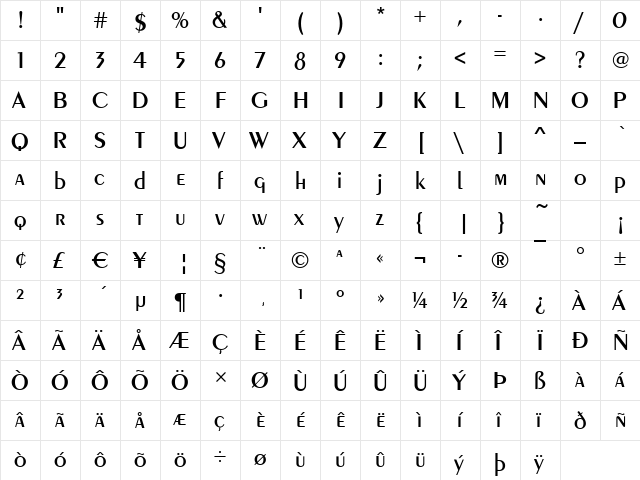
Peoria Regular
Design Context for Peoria Typeface
Peoria is a composed and adaptable typeface that performs quietly and consistently across a wide range of design contexts.